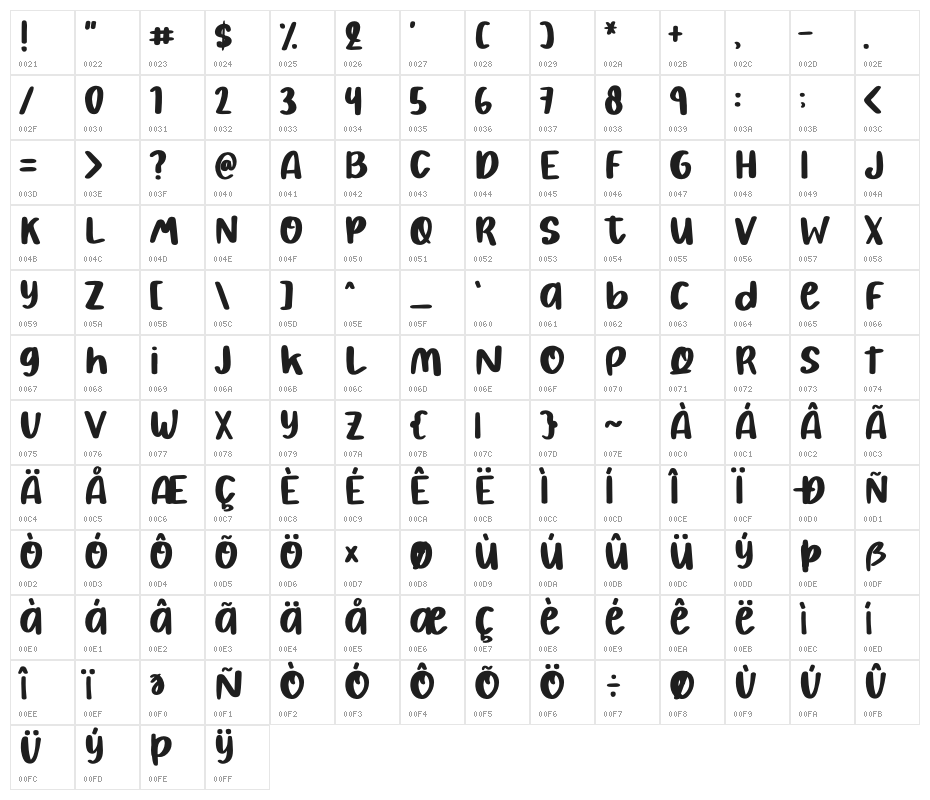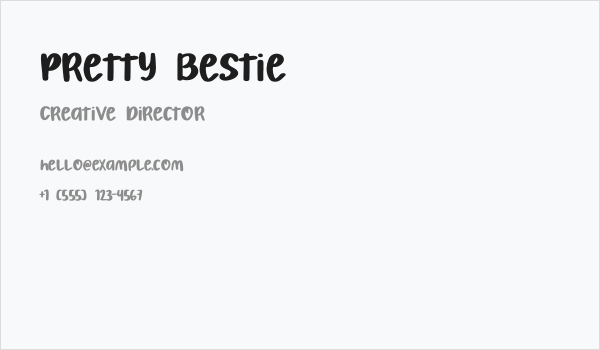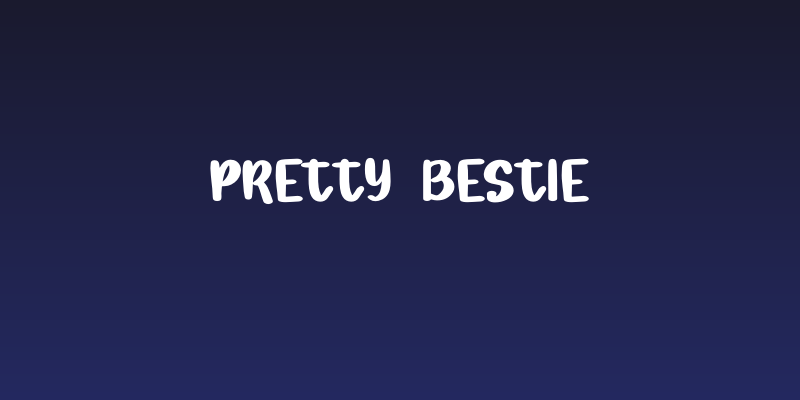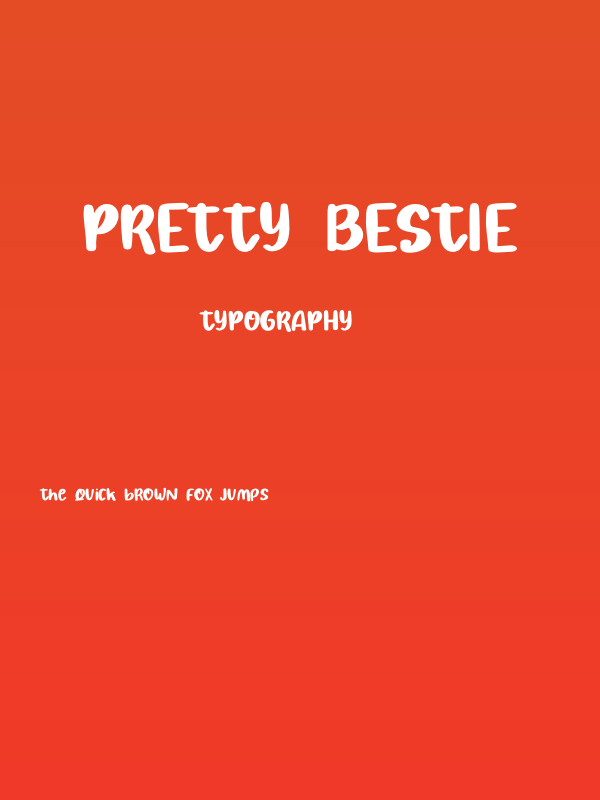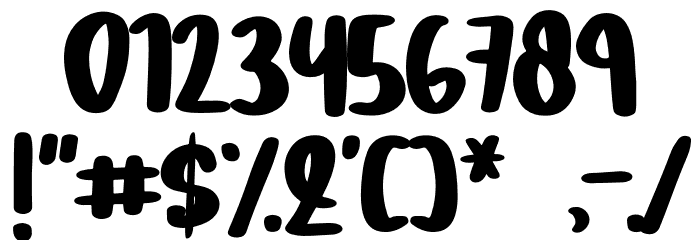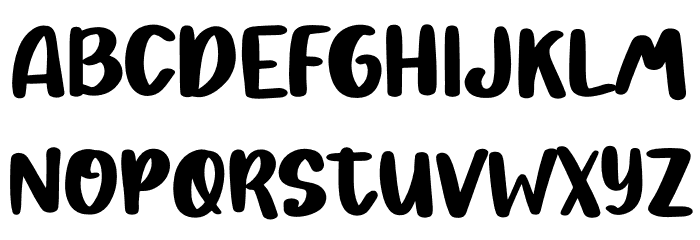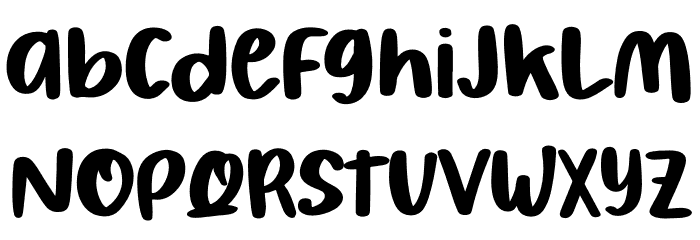
Pretty Bestie Font
Pretty Bestie Description
This playful and bold font features a handwritten style with thick, rounded strokes that convey a sense of fun and approachability. Each character is crafted with a consistent weight, giving the font a cohesive and uniform appearance. The letters are slightly slanted, adding a dynamic and lively feel. The font includes a full set of uppercase and lowercase letters, numbers, and a variety of special characters. Its informal and friendly aesthetic makes it suitable for projects that aim to evoke warmth and creativity.
| Proposed Projects | Ideal for children's books, playful branding, greeting cards, and social media graphics. |